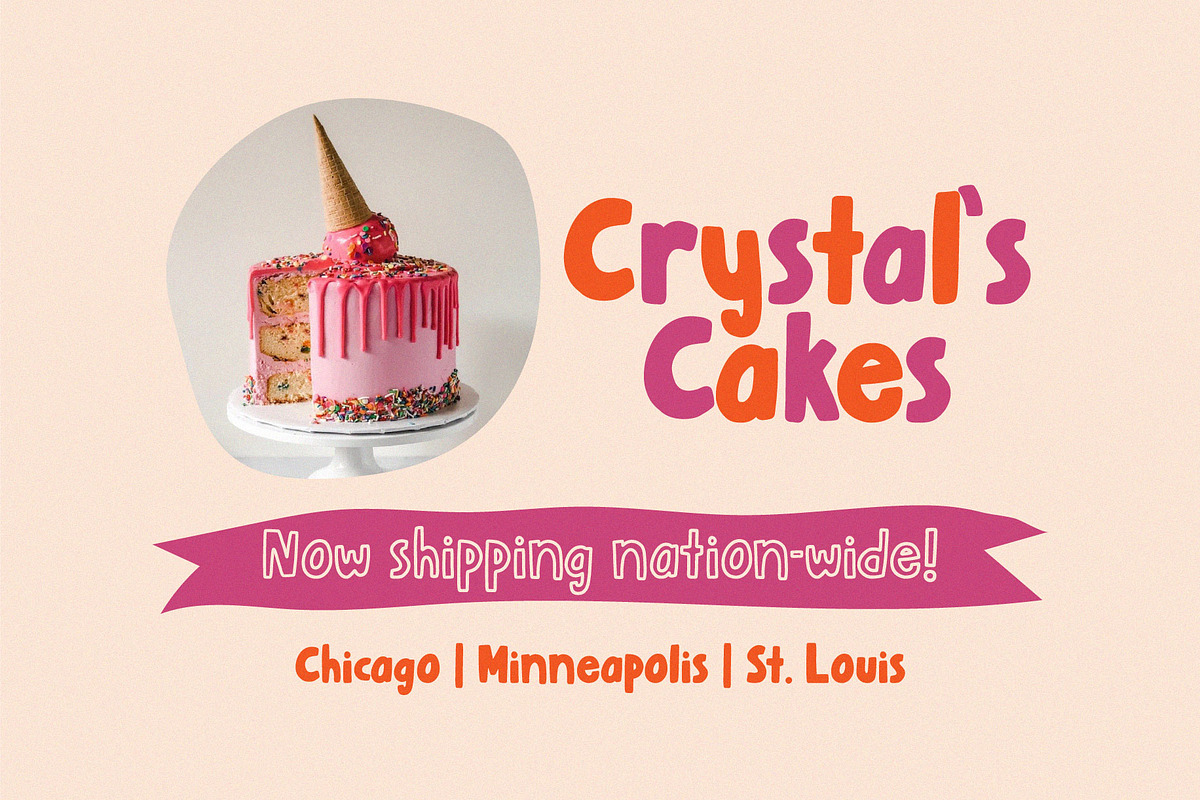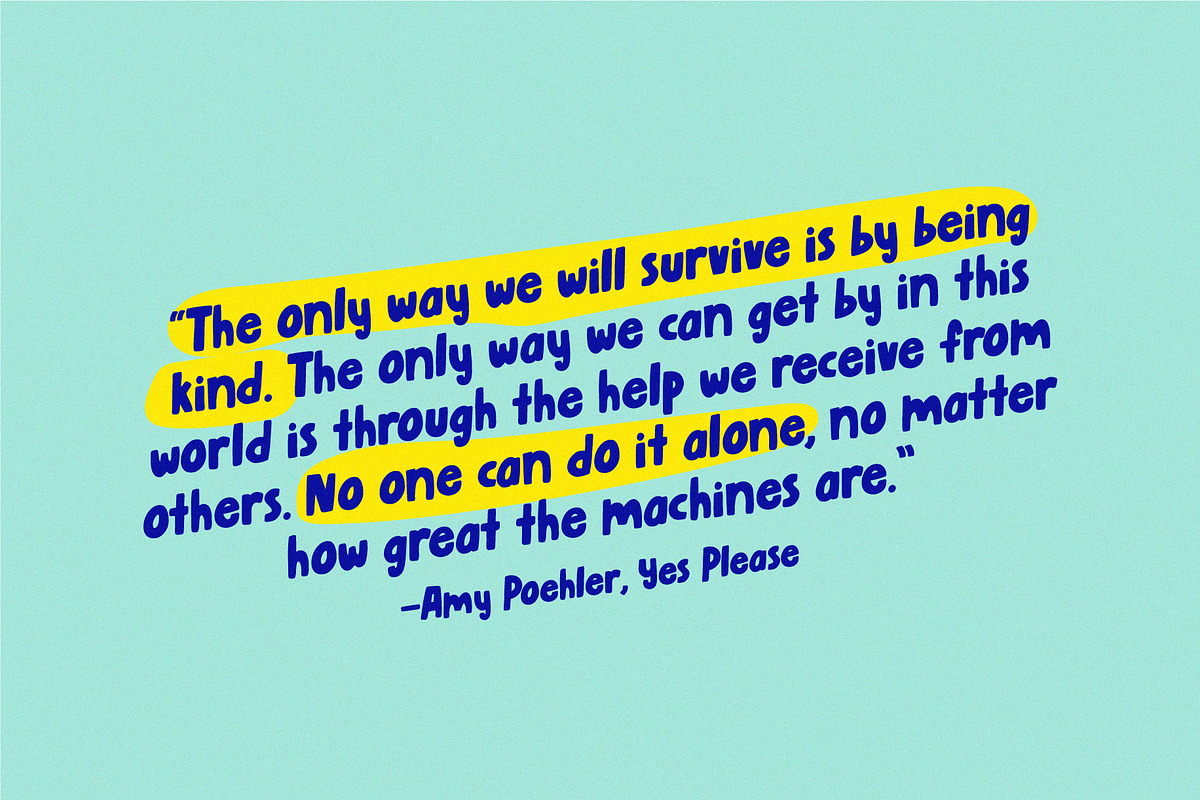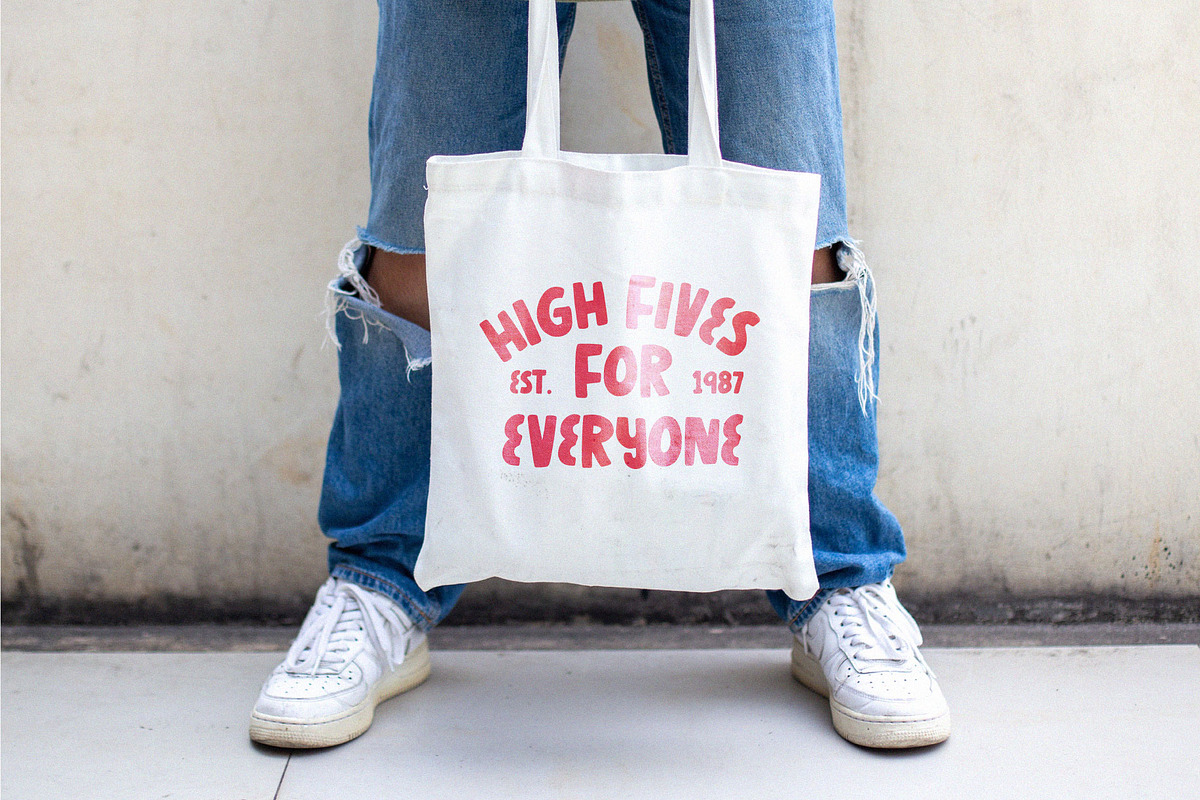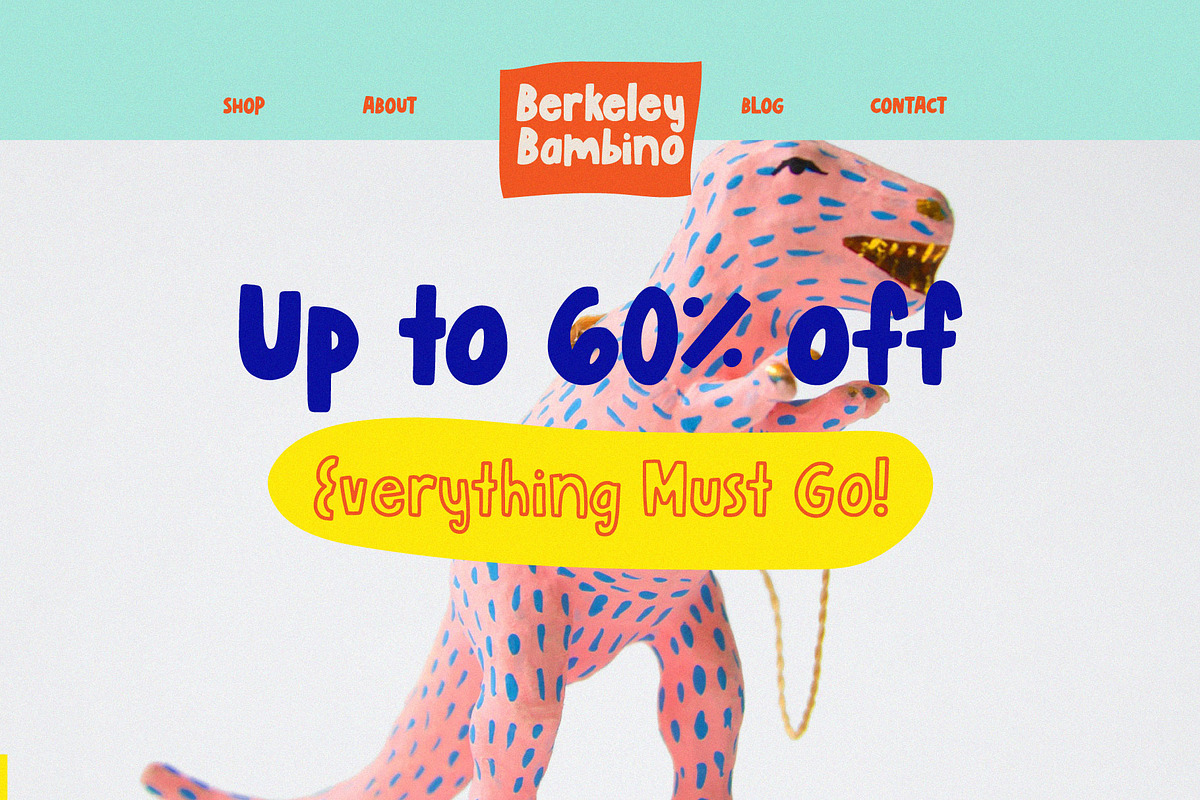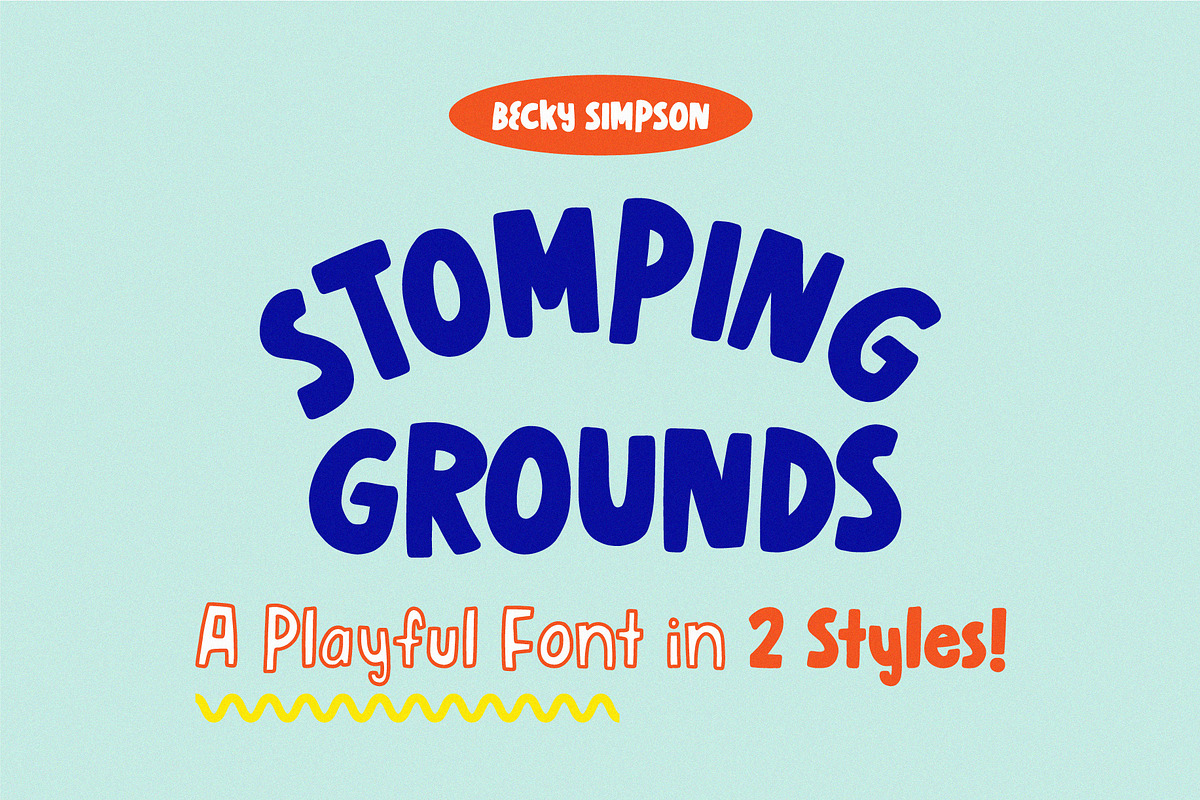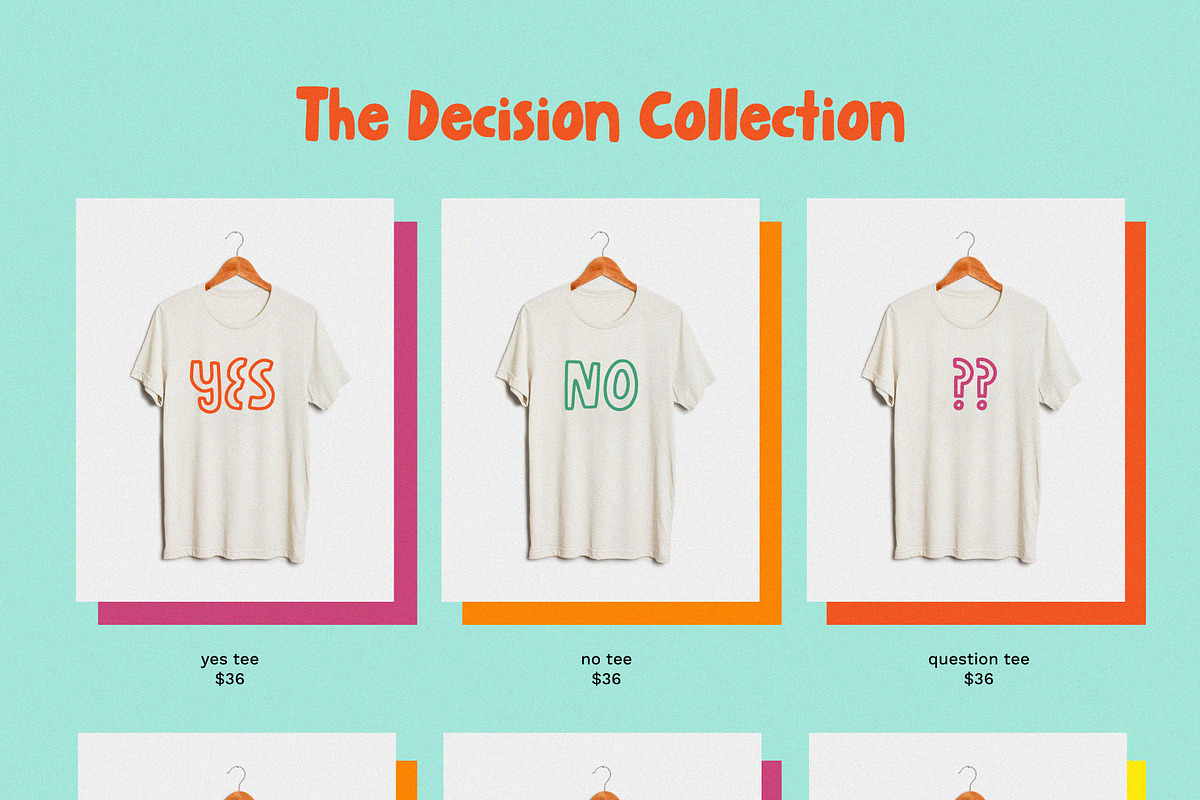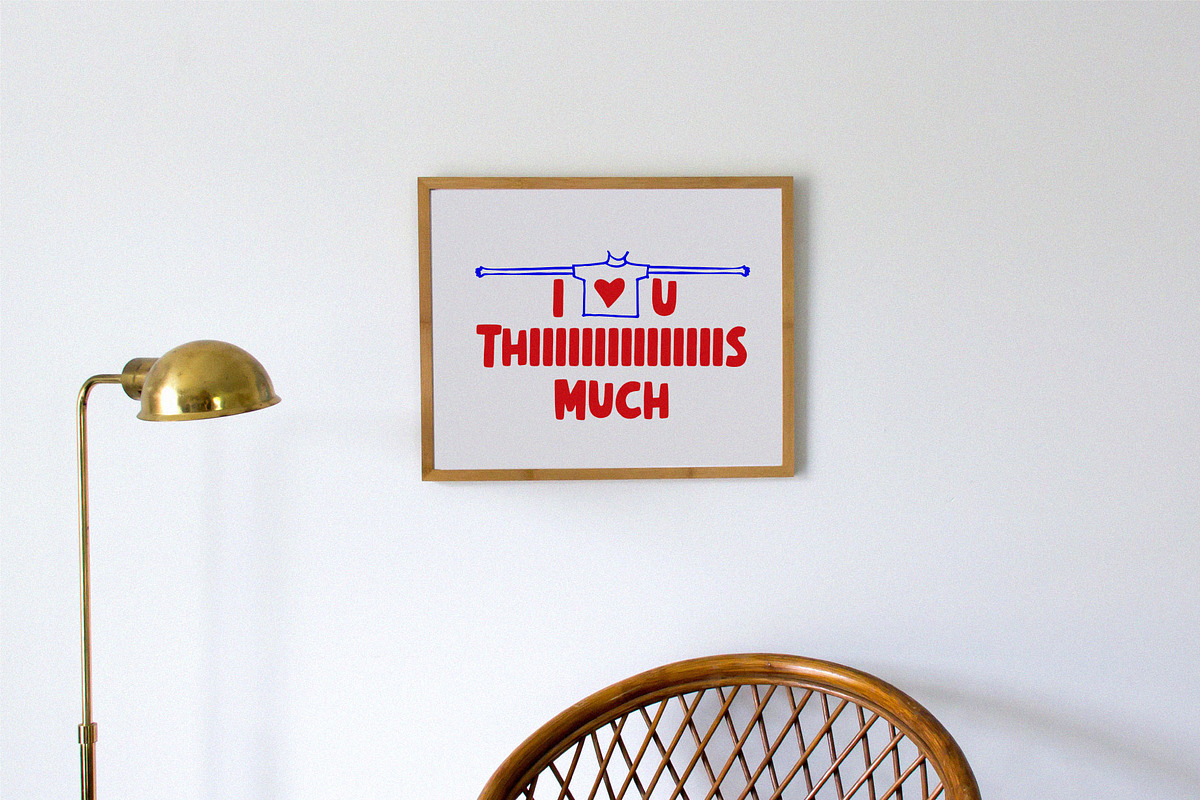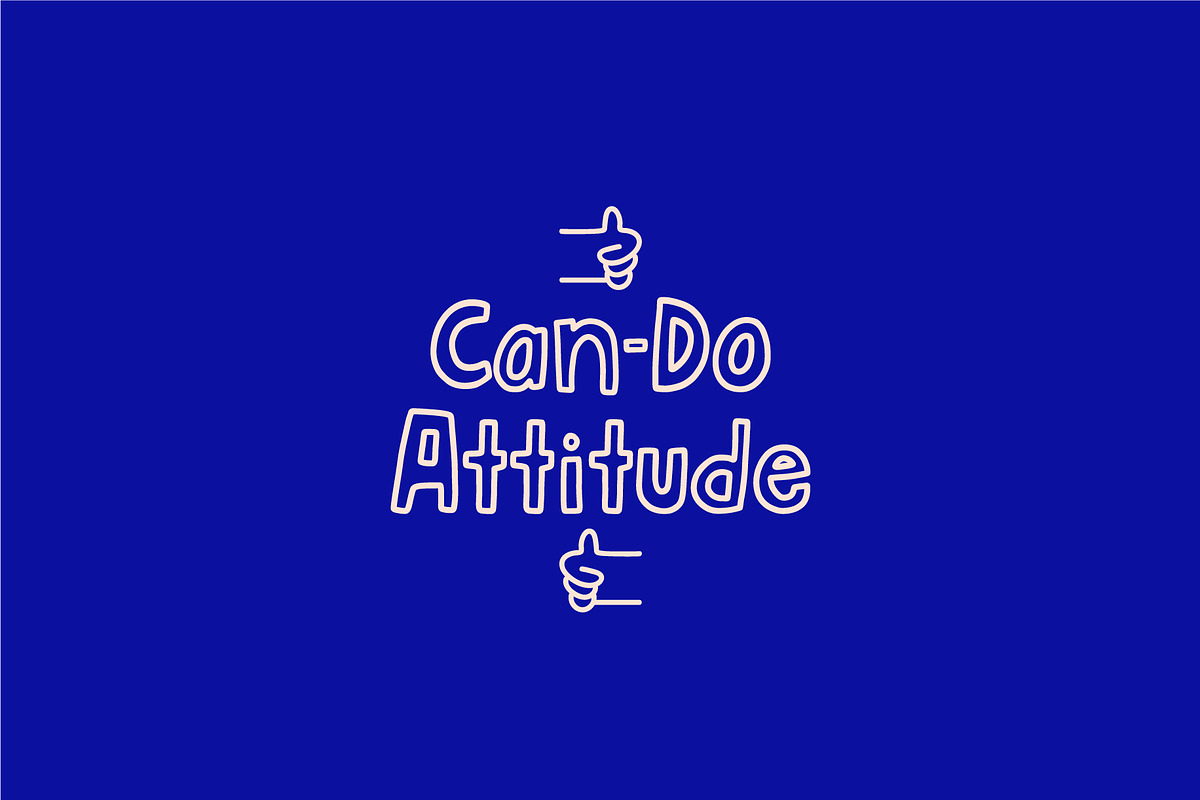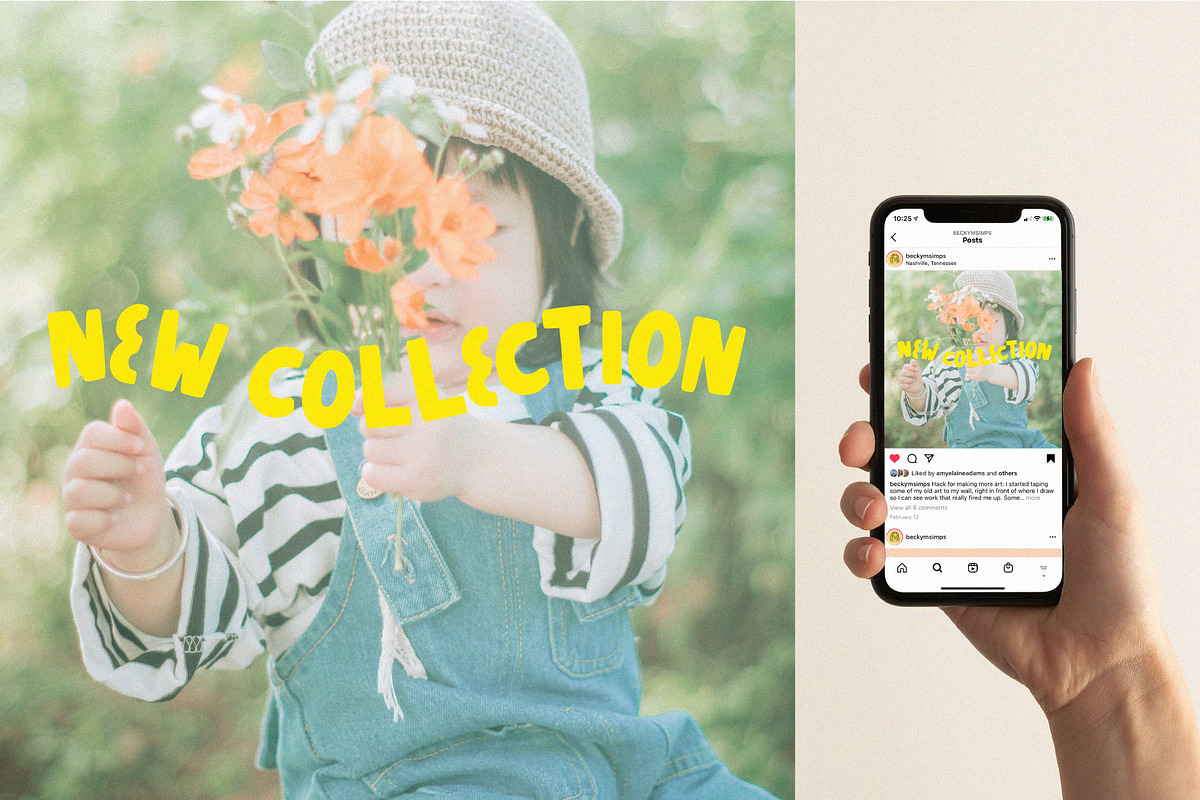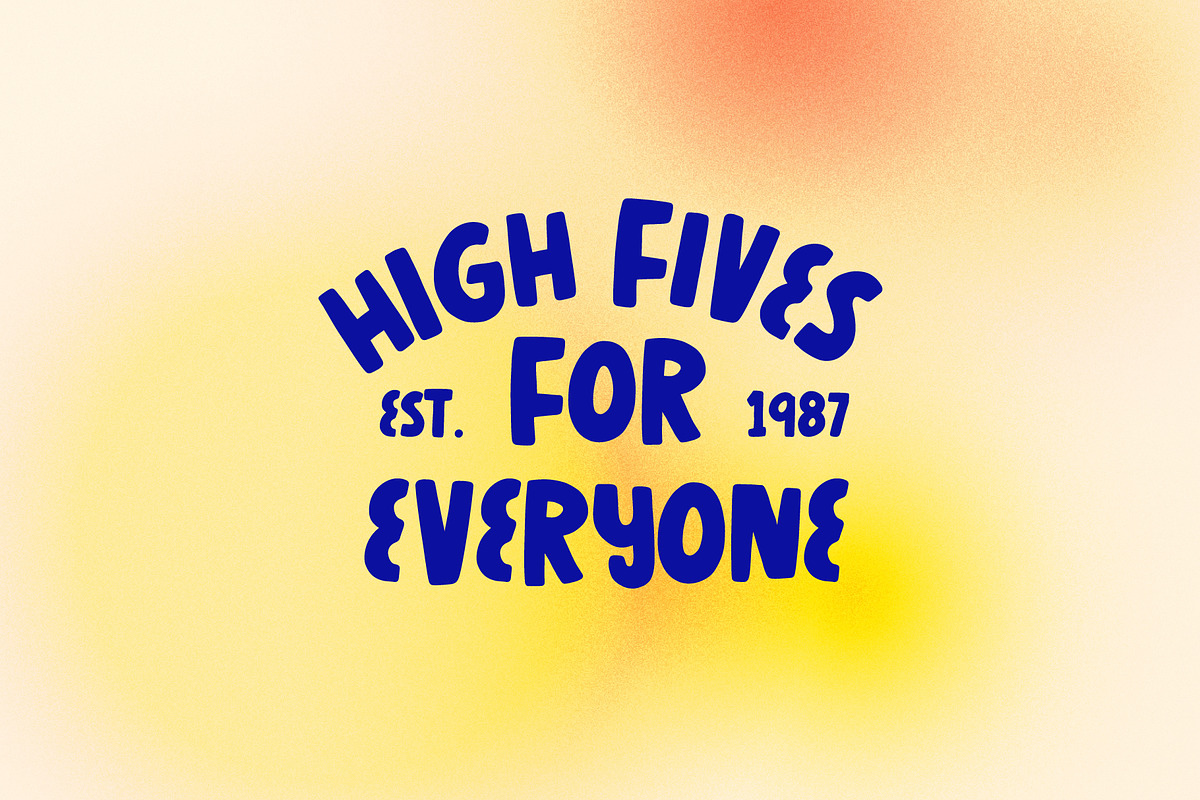
Stomping Grounds • Bubble Font
Stomping Grounds is the perfect bubble letter, hand-lettered font for just about anything: Editorial headers, products, Instagram announcements, web banners, book covers, logos, inspiring quotes, and more! It comes in both outline form and filled in so you can style it in a number of ways. It's called Stomping Grounds because it's the perfect home base hand-lettered font: Diverse to use just about anywhere but zany enough to stand out every time.
- 2 styles: Outlined and filled in